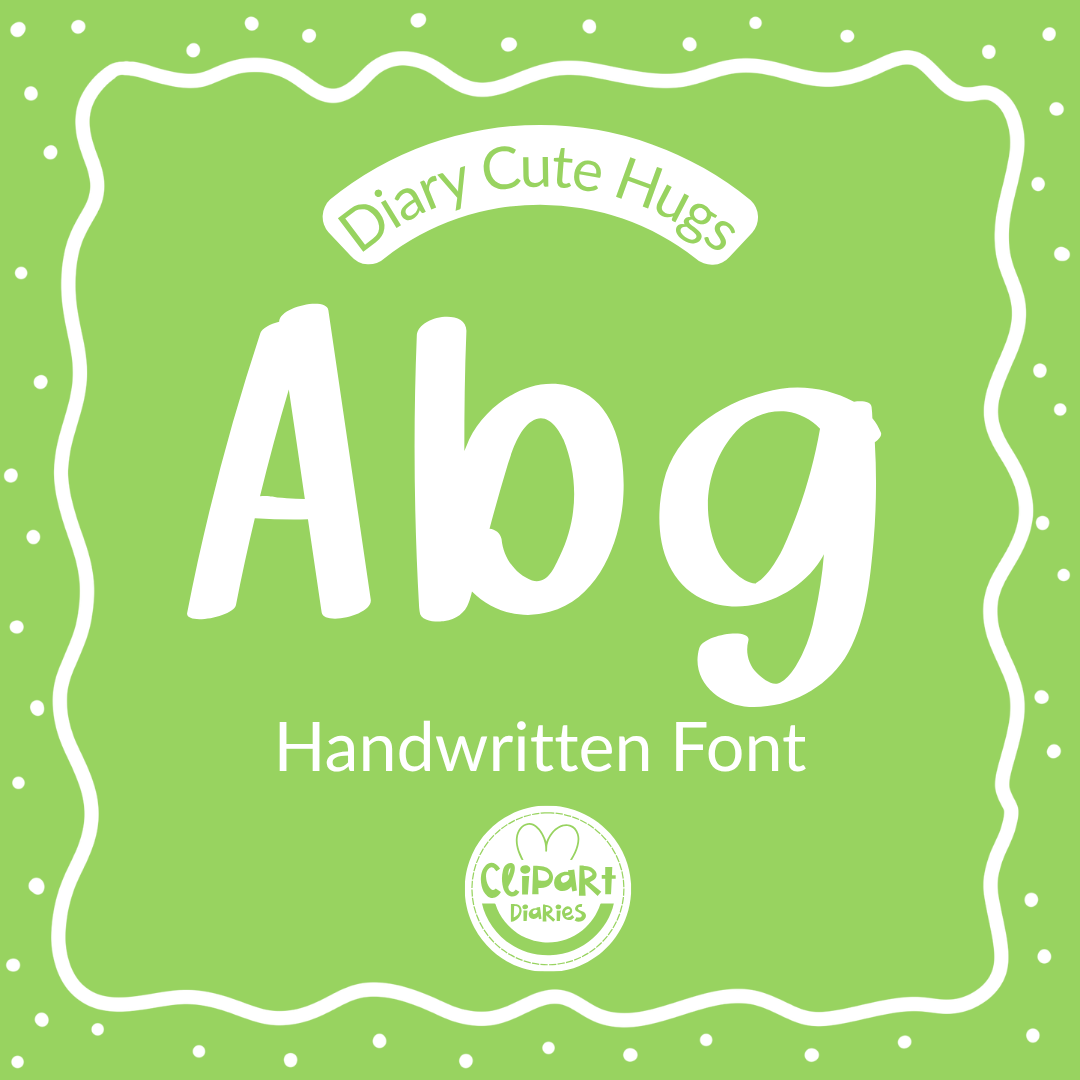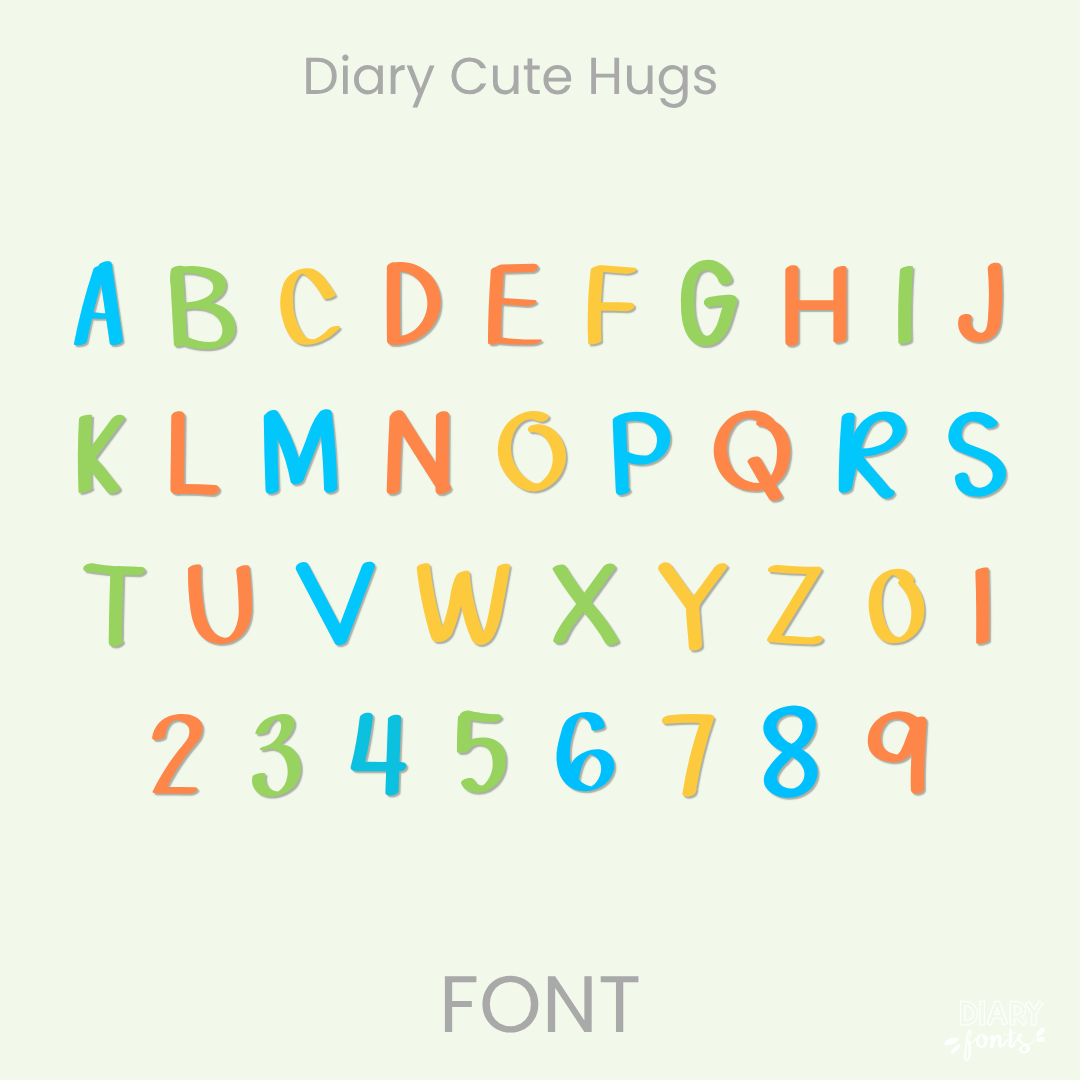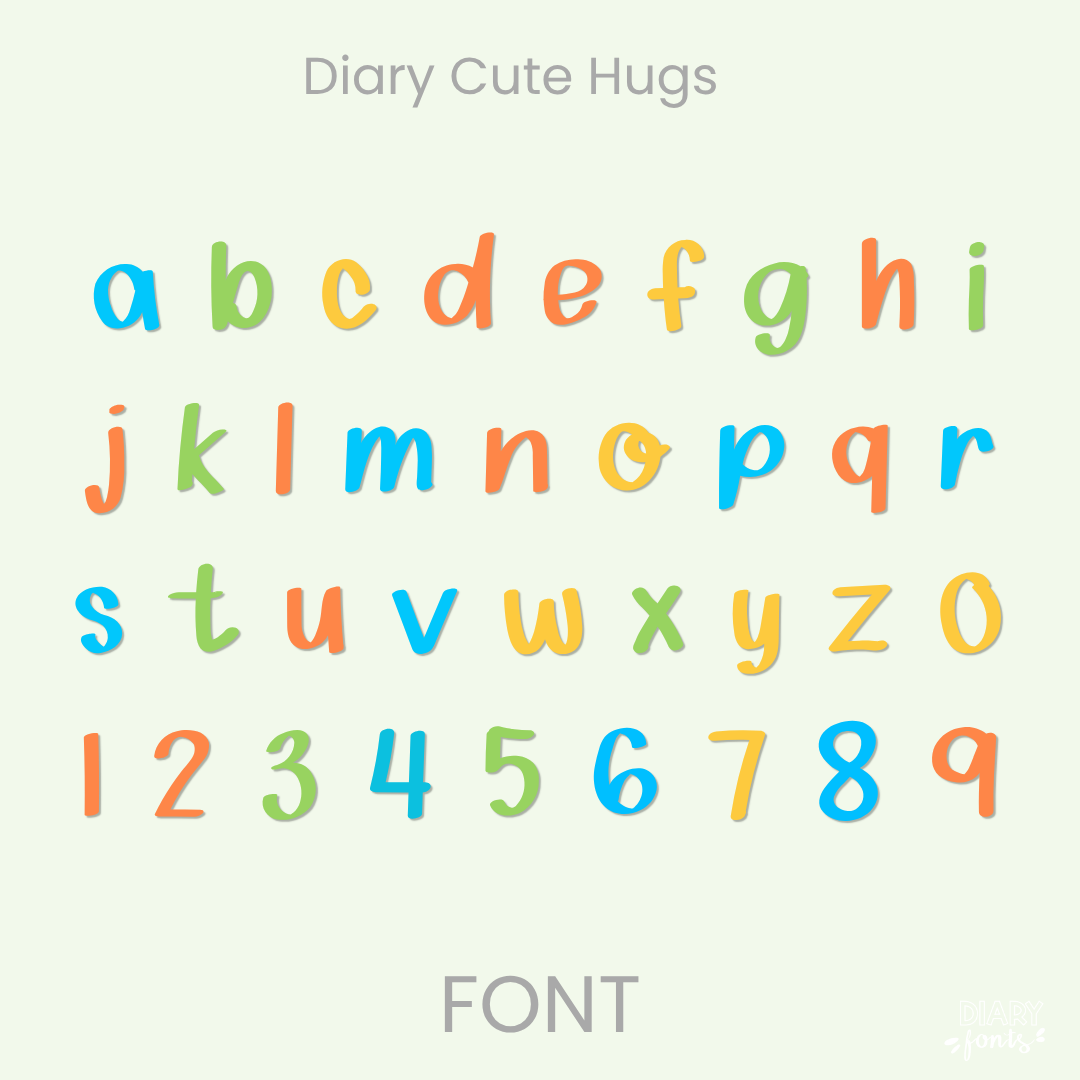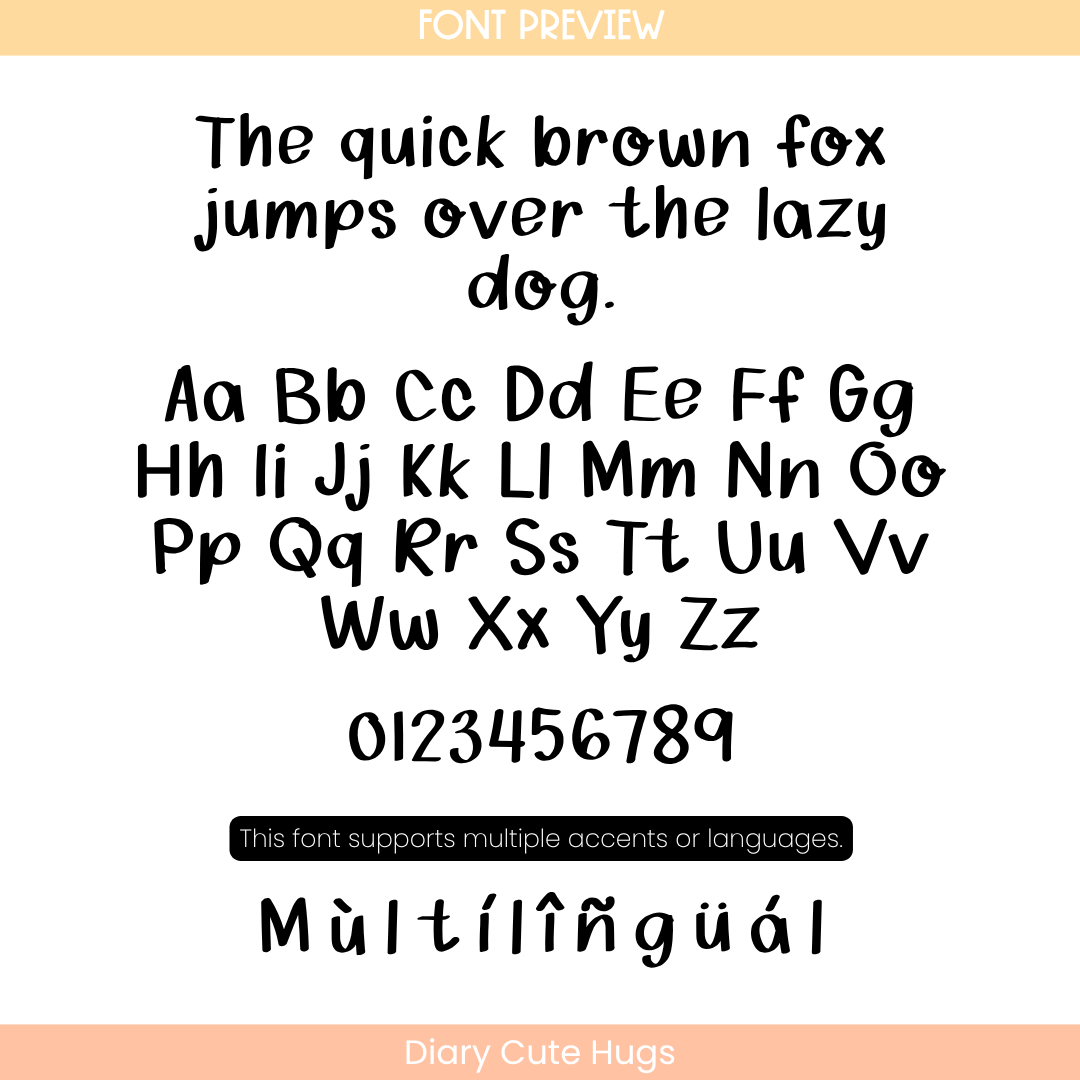
If you want to give your projects a cheerful and friendly look, Diary Cute Hugs is an excellent choice. It features soft, gently rounded characters that mimic a sweet and cozy everyday handwriting style. This makes it highly legible for students while still feeling playful. It is especially effective for bold headers, classroom labels, and primary school resources. The font includes a full set of uppercase and lowercase letters, numbers, and multiple accents to support different languages. It is ready for use in Canva, MS Office, and Adobe Apps, and it works perfectly with iPad apps like GoodNotes and Procreate. Whether for personal classroom use or commercial resources, this font adds a soft and approachable aesthetic to your work.
Diary Cute Hugs Font
The Diary Cute Hugs is a warm and comforting handwritten font designed to give your digital resources and classroom materials a friendly, hand-crafted feel.